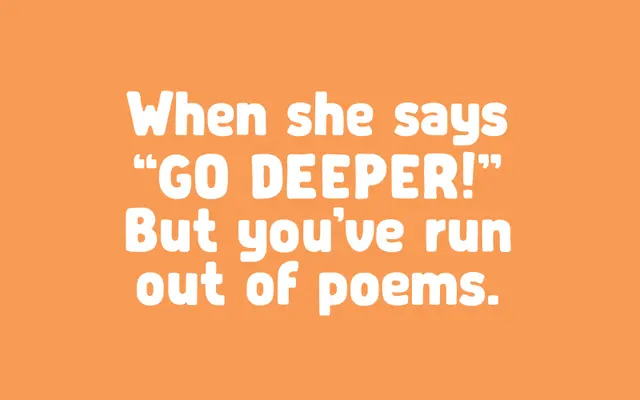
Abraham
The Designers Foundry · Jan Willem Wennekes
A hand-drawn display typeface by Jan Willem Wennekes with four contextual alternates per letter and optional retro interlocking discretionary ligatures.
Designed by Jan Willem Wennekes of Zeptonn, Abraham combines a soft, organic character with a confident stroke that makes it suitable for display headlines, packaging and branding. Each letter carries four variations that cycle automatically when contextual alternates are active, producing a more convincingly hand-lettered appearance. Discretionary ligatures add a retro interlocking effect, and the 564-glyph set covers a wide range of Latin-extended languages.
A single-weight hand-drawn display face with organic, illustrated letterforms and contextual alternates that simulate natural variation; firmly a display typeface rather than a text or script family.